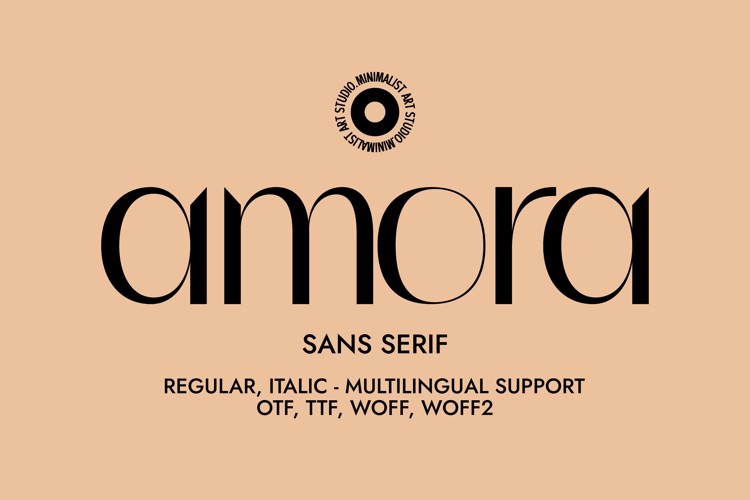
amora Font
π¨ Font Name: Amora by Minimalist Art Studio
π¨ Font Description: Amora is a minimalist sans serif with multilingual support and stylistic alternatesβideal for modern branding, fashion packaging, and editorial elegance.
β Complete Latin set + multilingual diacritics
β Alternates, stylistic sets & ligatures
β Numbers, small caps, and extended punctuation
β Bonus italics and family styles